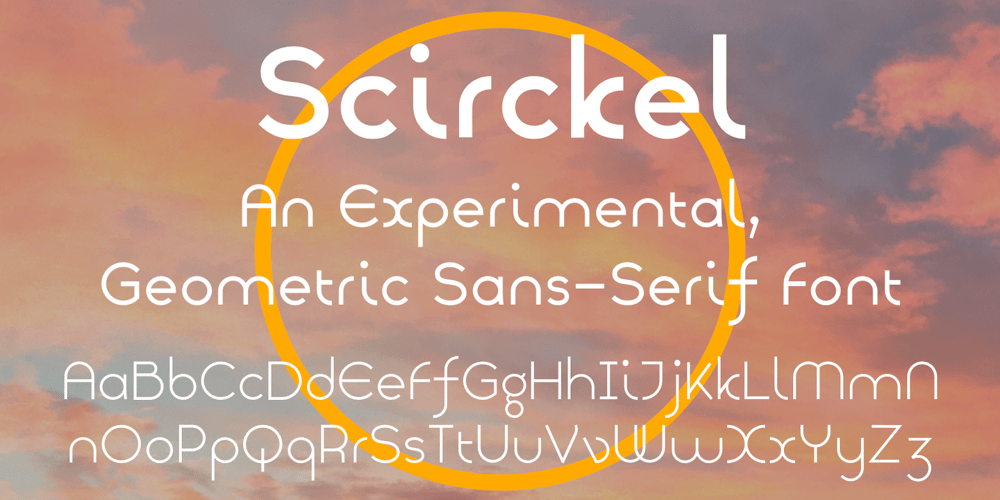
Scirckel Font Family was designed by Robert Schenk and published by Ingrimayne Type. Scirckel contains 8 styles and family package options. Scirckel is an experimental, geometric, sans-serif set of letters in which all of the lower-case and most of the upper-case contain circles or parts of circles. A display font, it comes in four weights with matching obliques. It contains alternative characters for six unusually shaped letters that can be accessed with the OpenType feature stylistic sets.